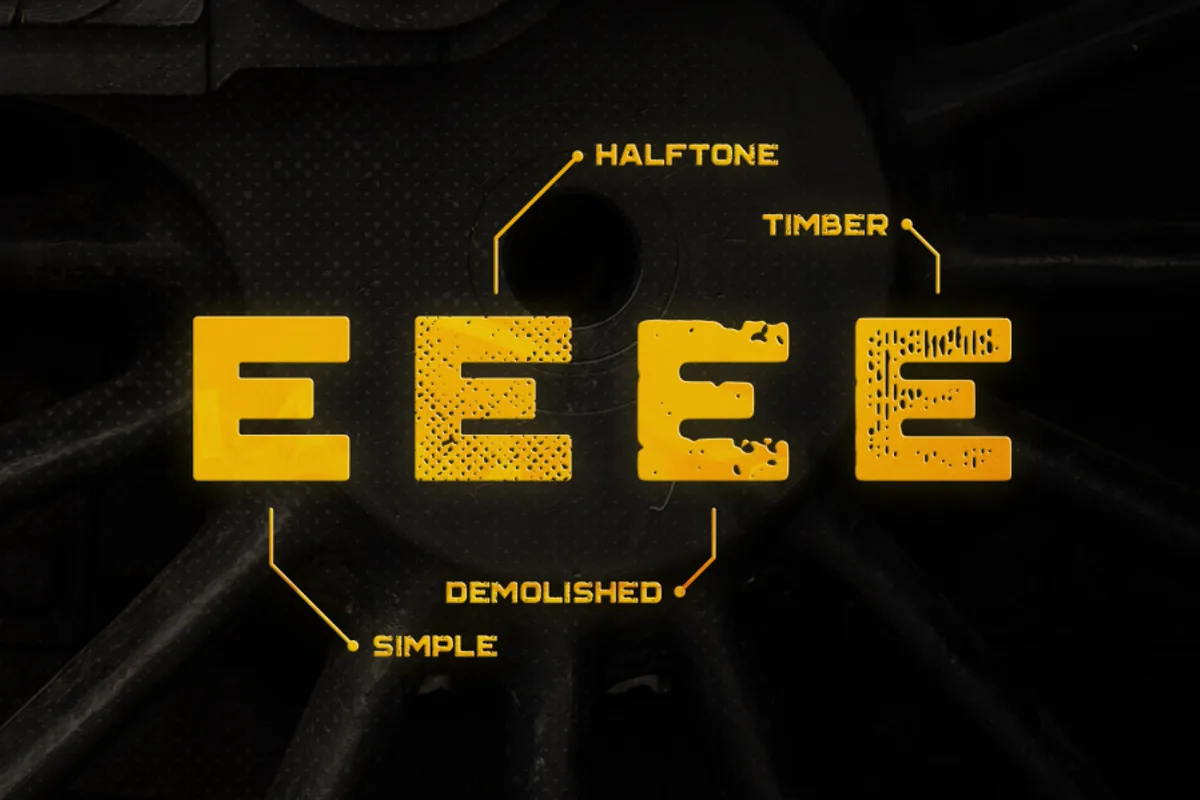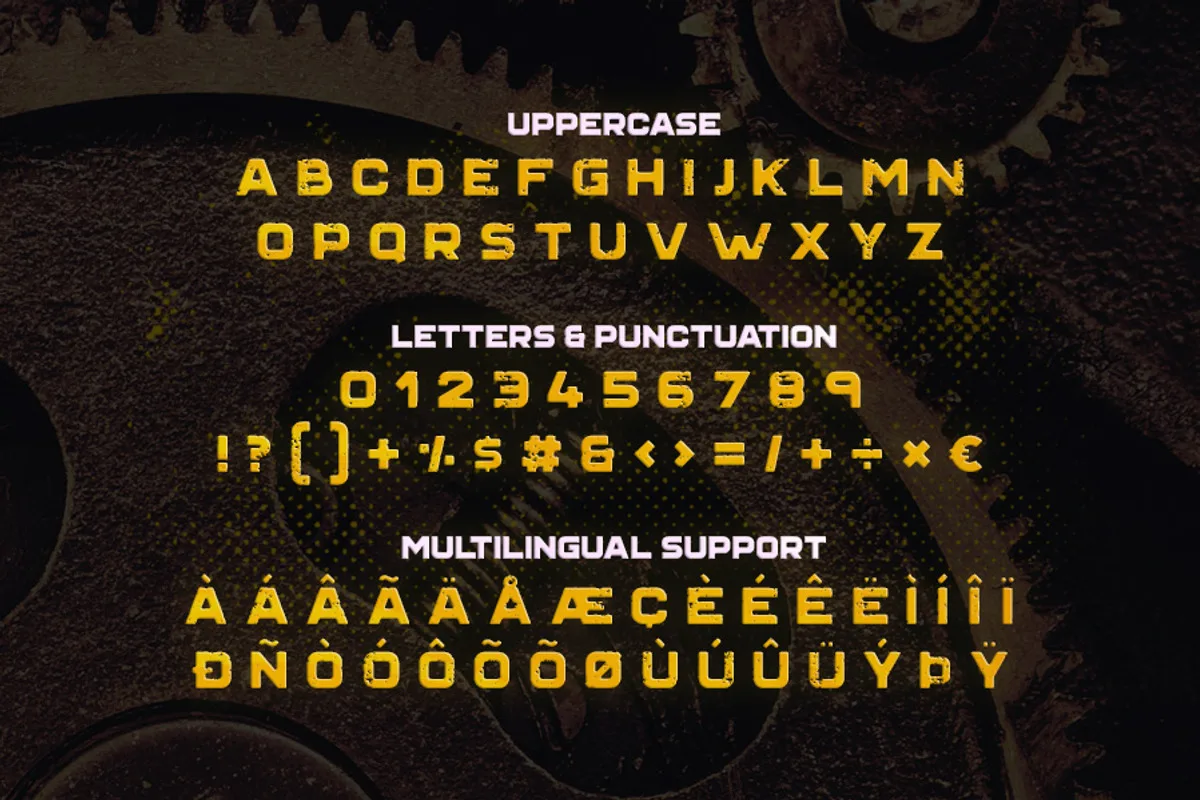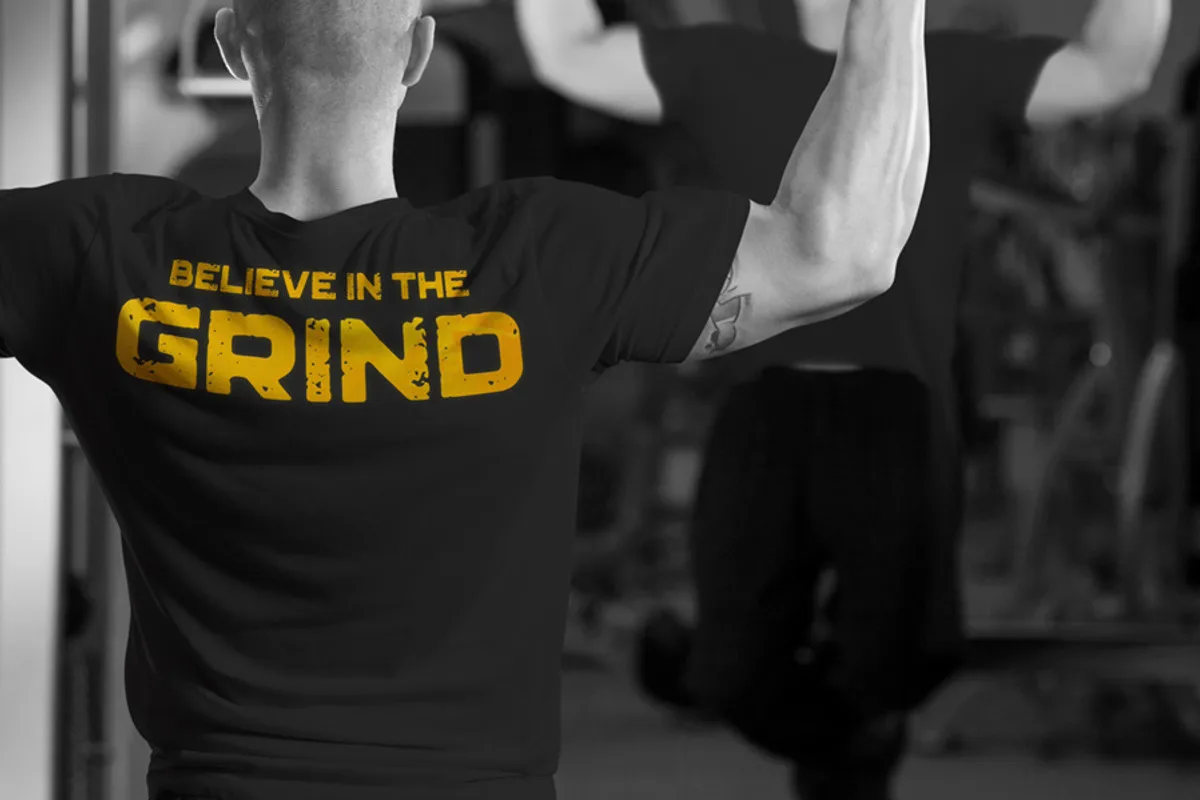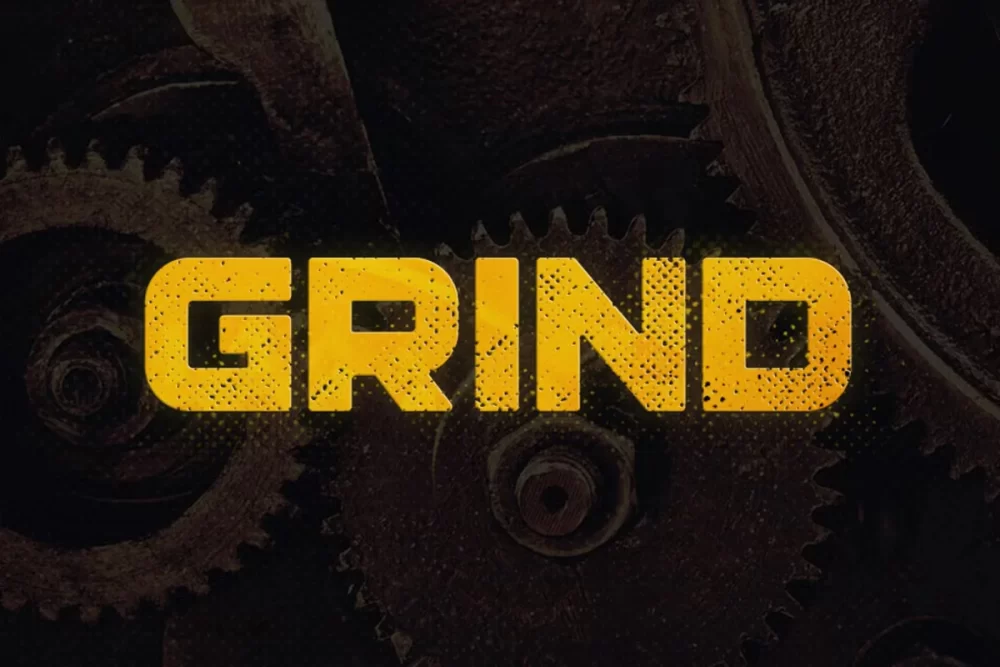
Grind is a big and bold display typeface that oozes strength and toughness. Grind features simple, demolished, halftone and timber styles. It also comes with multilingual support and includes letters, numbers and punctuation.